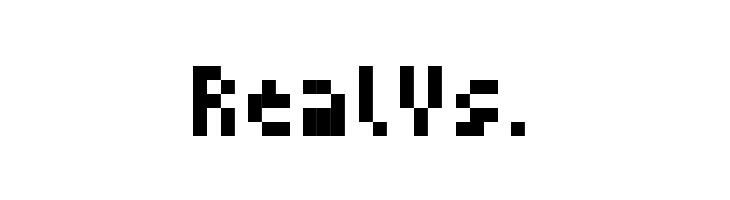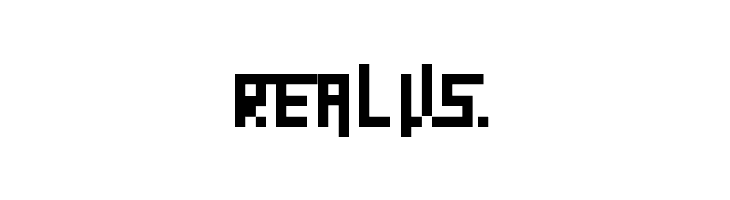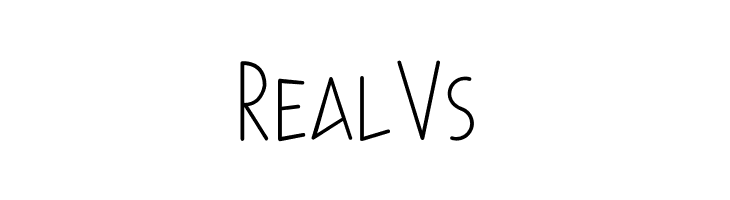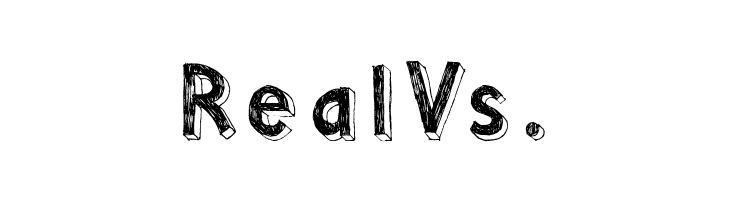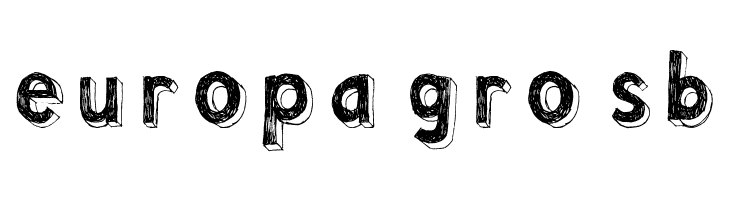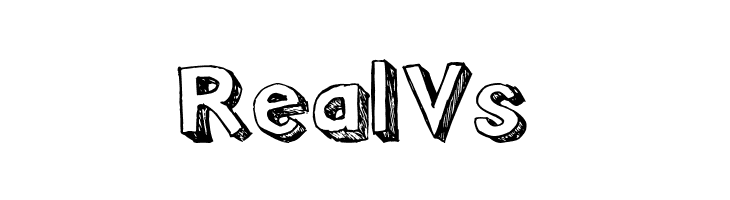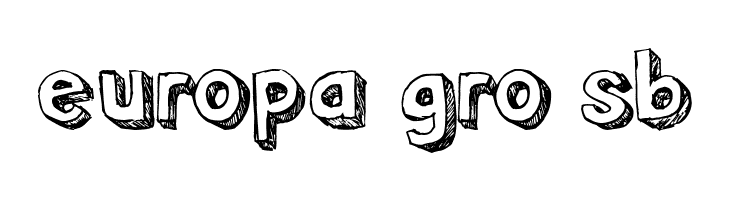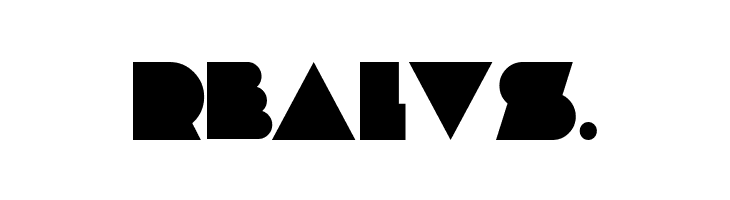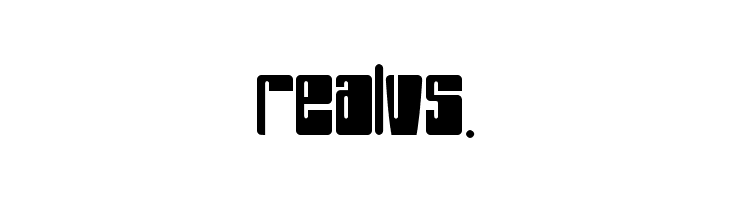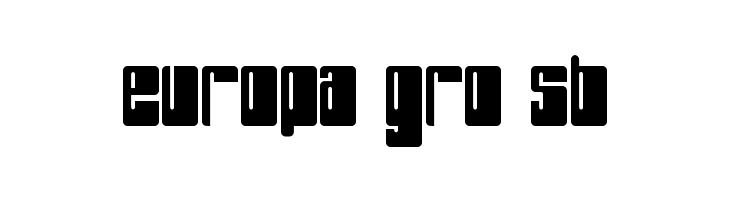
A bold, playful font with dynamic curves and strong visual impact.
A classic serif font with elegant strokes and high contrast.
An expressive, hand-drawn font with a whimsical and artistic style.
A bold, rounded font with a playful and modern aesthetic.
A bold, playful font with rounded, bubble-like characters.
A playful, bold font with rounded, bubble-like characters.
A decorative dingbat font featuring cute cartoon faces.
A decorative dingbat font featuring quirky cartoon characters.
An edgy, barbed wire-inspired font with sharp, angular lines.
A bold, geometric font with a modern, digital aesthetic.
A modern, geometric font with rounded edges and uniform line thickness.
A decorative, geometric font with outlined, hollow characters.
A geometric, three-line stroke font with a modern and structured appearance.
A playful dingbat font with eclectic hand-drawn illustrations.
A bold, geometric font with a modern and decorative style.
A bold, geometric font with angular shapes and a modern aesthetic.
A bold, rounded, and modern font with a futuristic appeal.
A bold, modern font with arrow-like points extending from each character.
A bold, hand-drawn font with a sketch-like, three-dimensional appearance.
A bold, hand-drawn font with a textured, sketch-like appearance.
Hand-drawn, doodle-style decorative font with playful icons.
A rustic, hand-drawn font with a medieval, vintage feel.
A playful font with characters designed as stylized faces, perfect for creative and humorous projects.